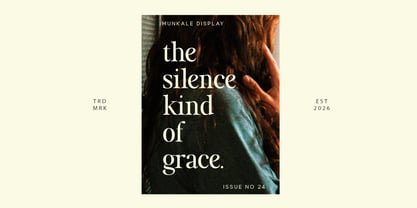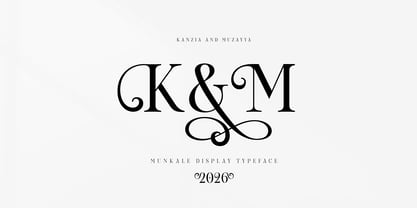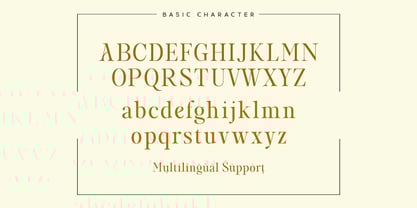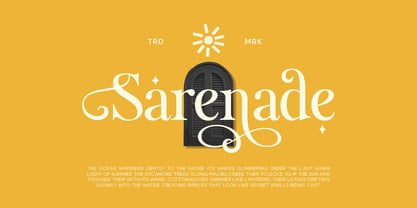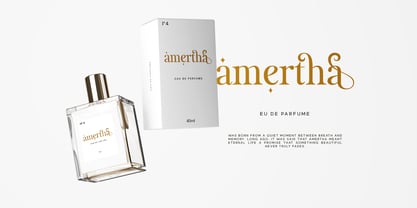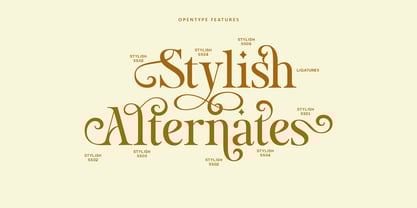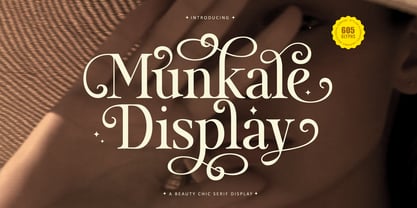
Munkale Display
by Areatype
The Munkale Display Font Family was designed by Ambia and published by Areatype. Munkale Display contains 1 styles. More about this family
Munkale display is a very versatile font. perfect for magazine images, to wedding invitations, to branding, poster design, and more. Adding beautiful ligatures and alternatives to make your typography truly unique. Files included: Munkale display Regular Numerals & Punctuation Stylistic Alternates & Ligatures PUA Encoded Characters Thanks so much for looking :)
Designers: Ambia
Foundry: Areatype